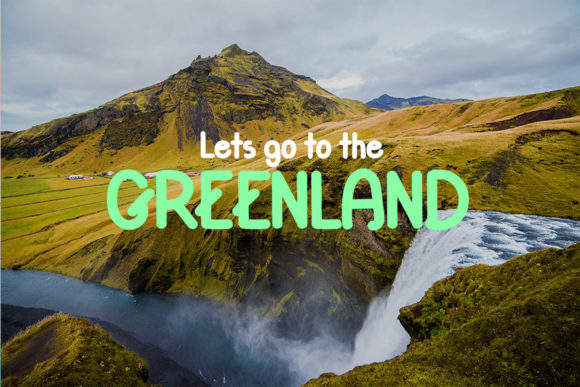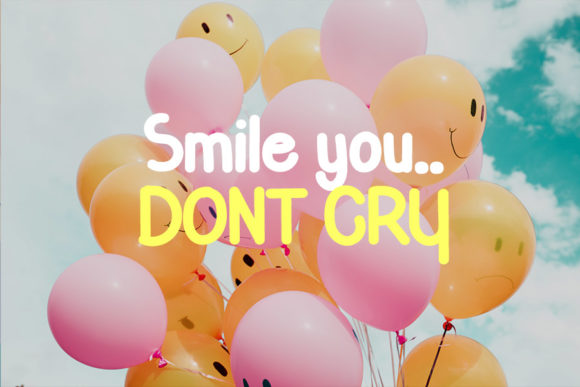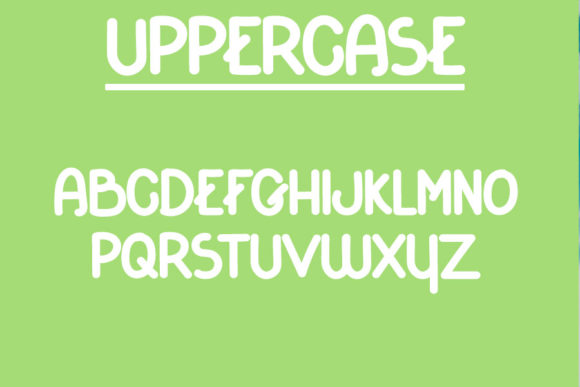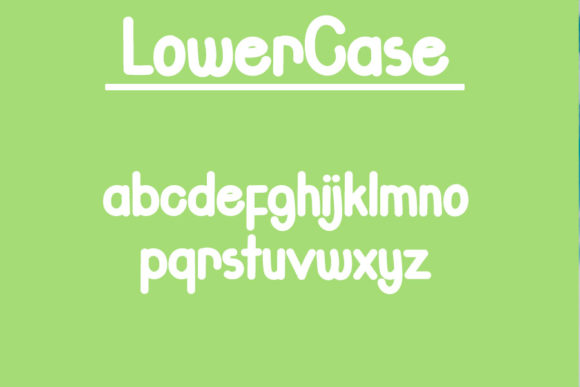
Graphephant Font
About Graphephant Font
Grapephant is a simple and trendy handwritten font. Add it confidently to your projects, and you will love the results.